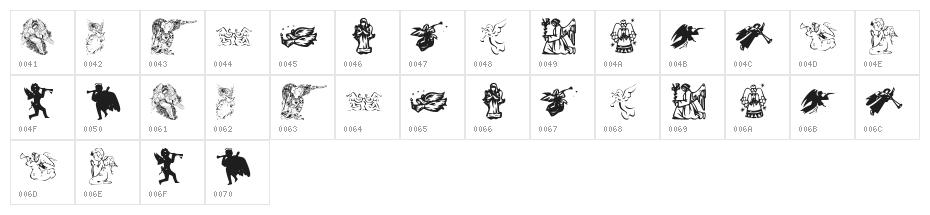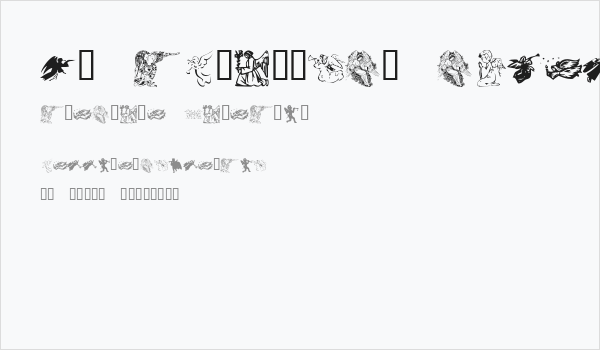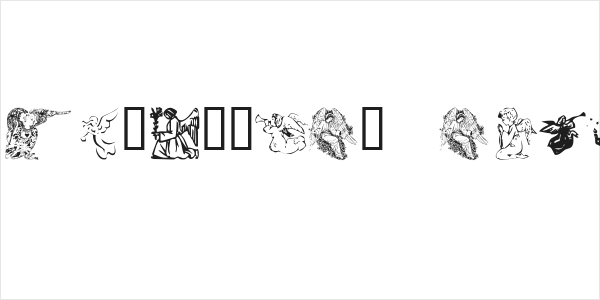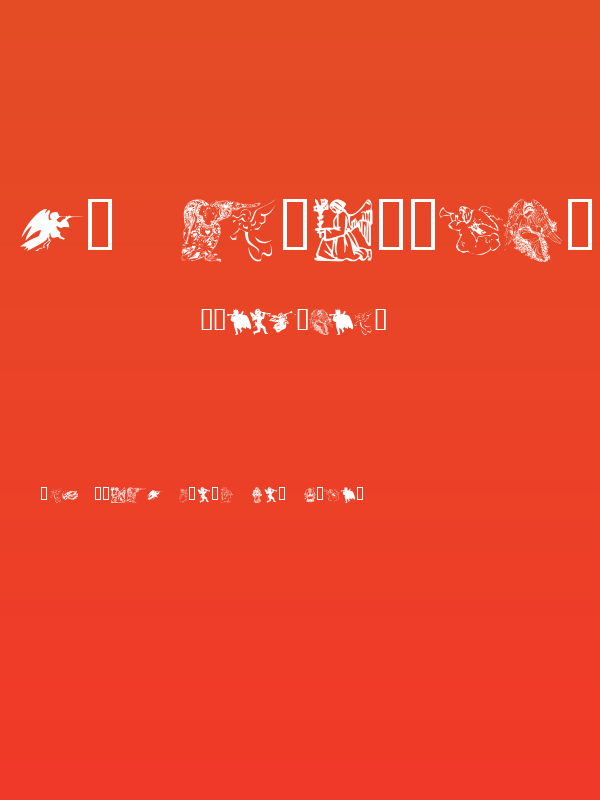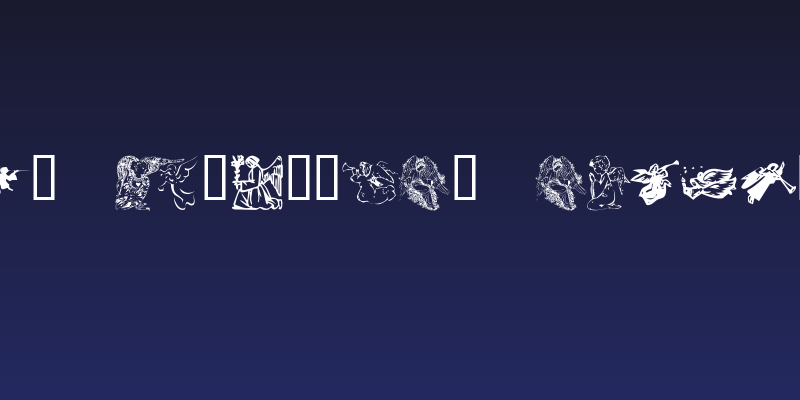
KR Christmas Angels Font
KR Christmas Angels Description
This decorative font features a series of intricate and whimsical Christmas-themed angel illustrations. Each character is represented by a unique angel design, capturing various poses and activities associated with the holiday season. The illustrations are detailed, showcasing elements like wings, robes, and musical instruments, adding a festive and artistic touch. The style is playful yet elegant, making it ideal for creative holiday projects. The font does not include traditional alphanumeric characters, focusing solely on the angelic designs.
| Use Case | Logos, Decorative elements |
| Proposed Projects | Ideal for holiday cards, festive invitations, Christmas-themed posters, and decorative crafts. |